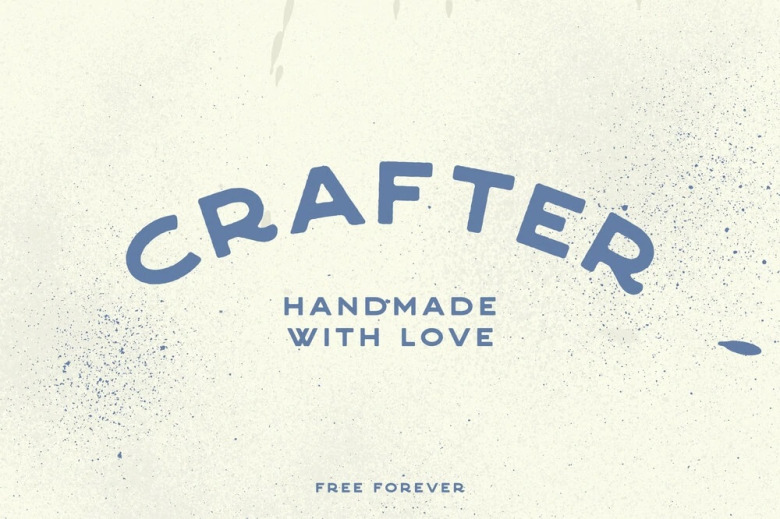
Crafter Vintage Font Free
Crafter Vintage Font
Crafter Vintage Font is a sans serif font family, elegant and modern, also suitable for vintage design. Made from font designer named 1871 Project. It takes inspiration from vintage metal signs as well as sign painters, and it’s perfect for your next project. Use it in logos, t-shirts, posters, social media, or literally anything else (probably not in paragraphs though.)